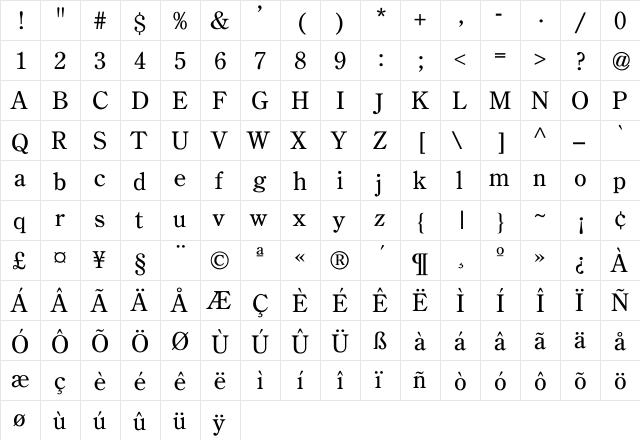
CenturyOldStyle-Normal Regular
Design Context for CenturyOldStyle-Normal Typeface
CenturyOldStyle-Normal brings classic typographic sensibility to the table — its serifs and measured letterforms reflect centuries of print heritage.
Pro Tip: Set CenturyOldStyle-Normal with slightly loose tracking in headlines to let each letterform's detail read clearly at display sizes.